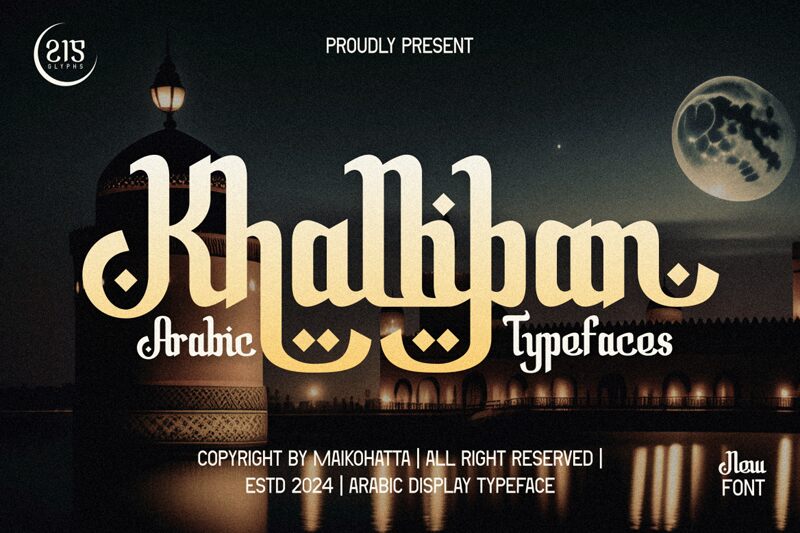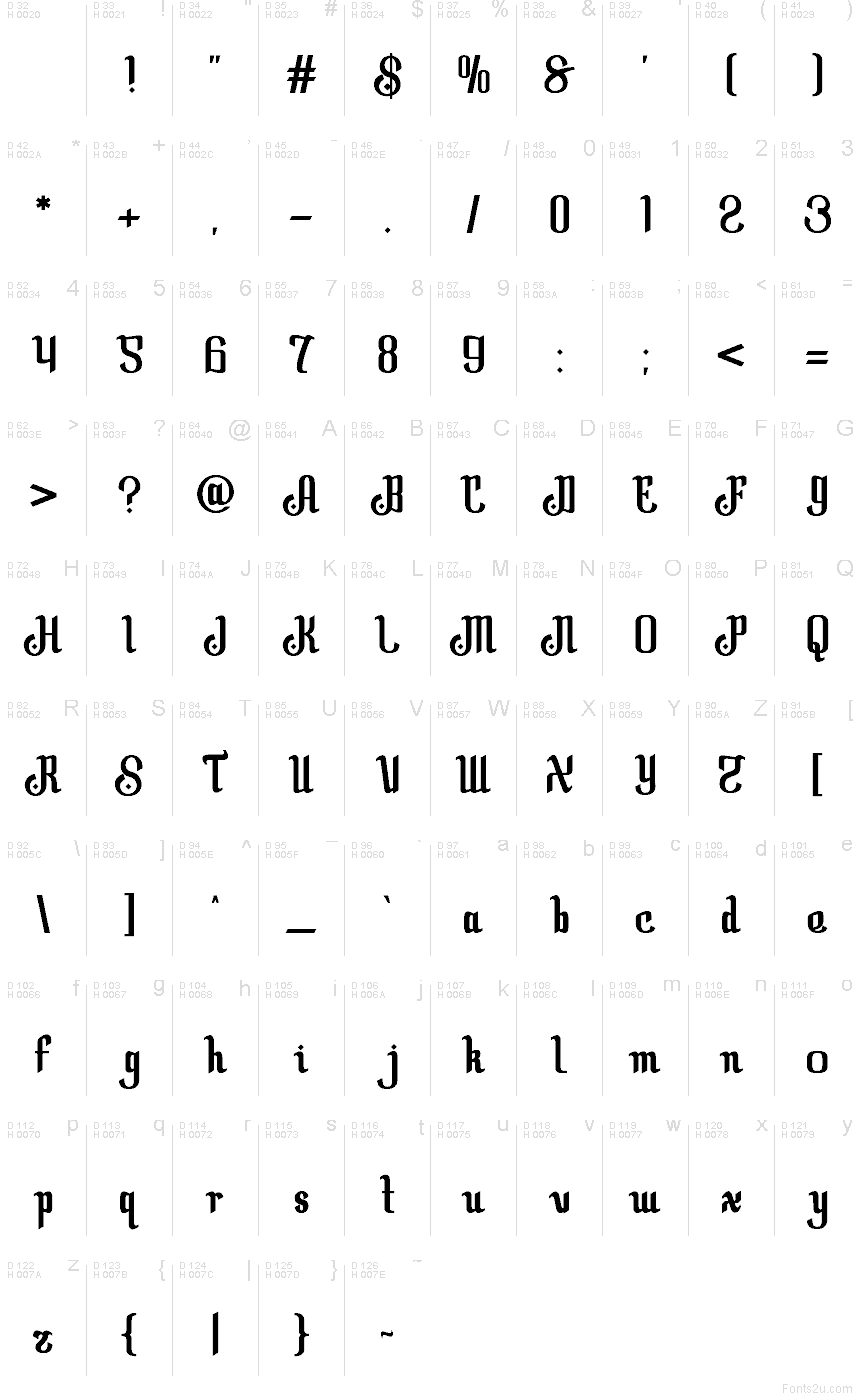
Khalliban
Khalliban font by Gilang Ternadho is a free decorative faux-Arabic typeface that fuses bold, blackletter-style strokes with flowing Middle Eastern–inspired curves. Heavy verticals and tight counters create a dense, inky texture, while the looping terminals and diamond dots add a sense of ornate rhythm. The result feels like signage painted on old bazaar walls—dramatic, stylized, and instantly evocative of an exotic setting.
Using Khalliban, this free font shines on restaurant logos, hookah bar signage, festival posters, packaging, game titles, and themed event branding where you want a strong cultural flavor without being literal. Its thick strokes hold up beautifully at large sizes and on print or signage. For supporting text, pair Khalliban with a clean geometric sans serif in a lighter weight to keep things legible and let the headline lettering do the storytelling.